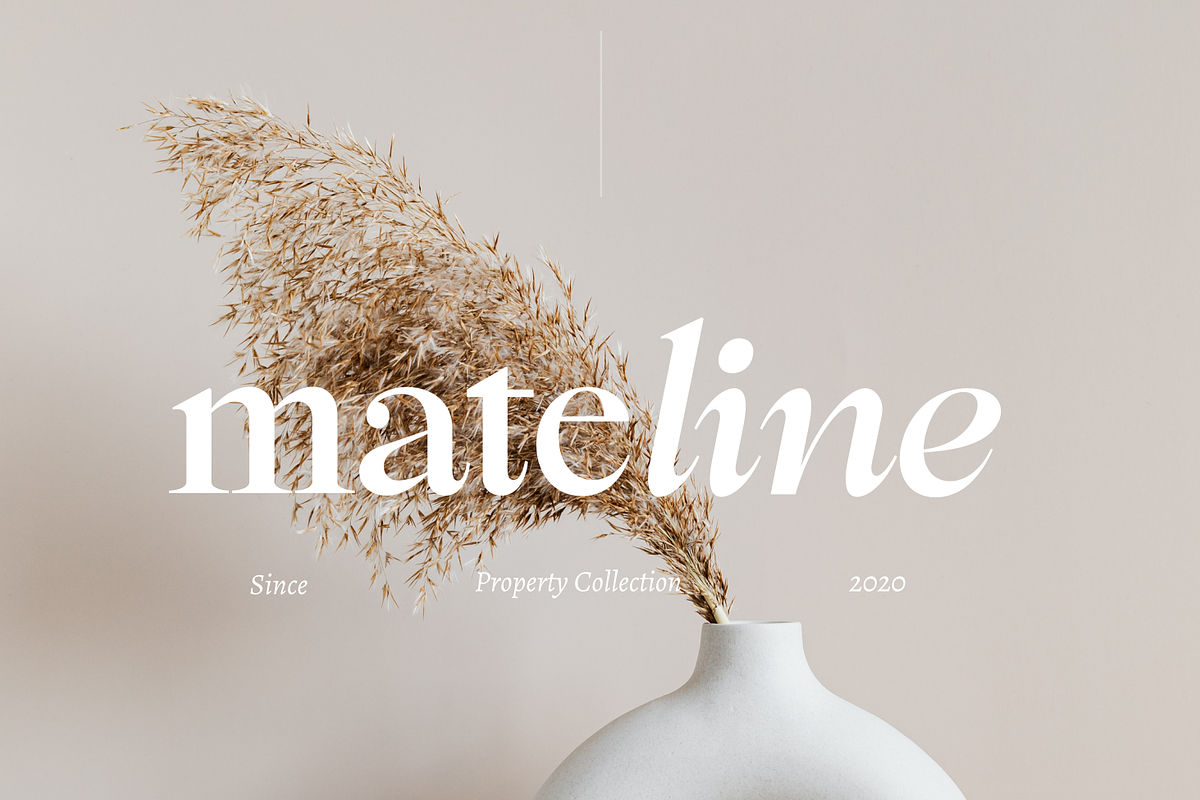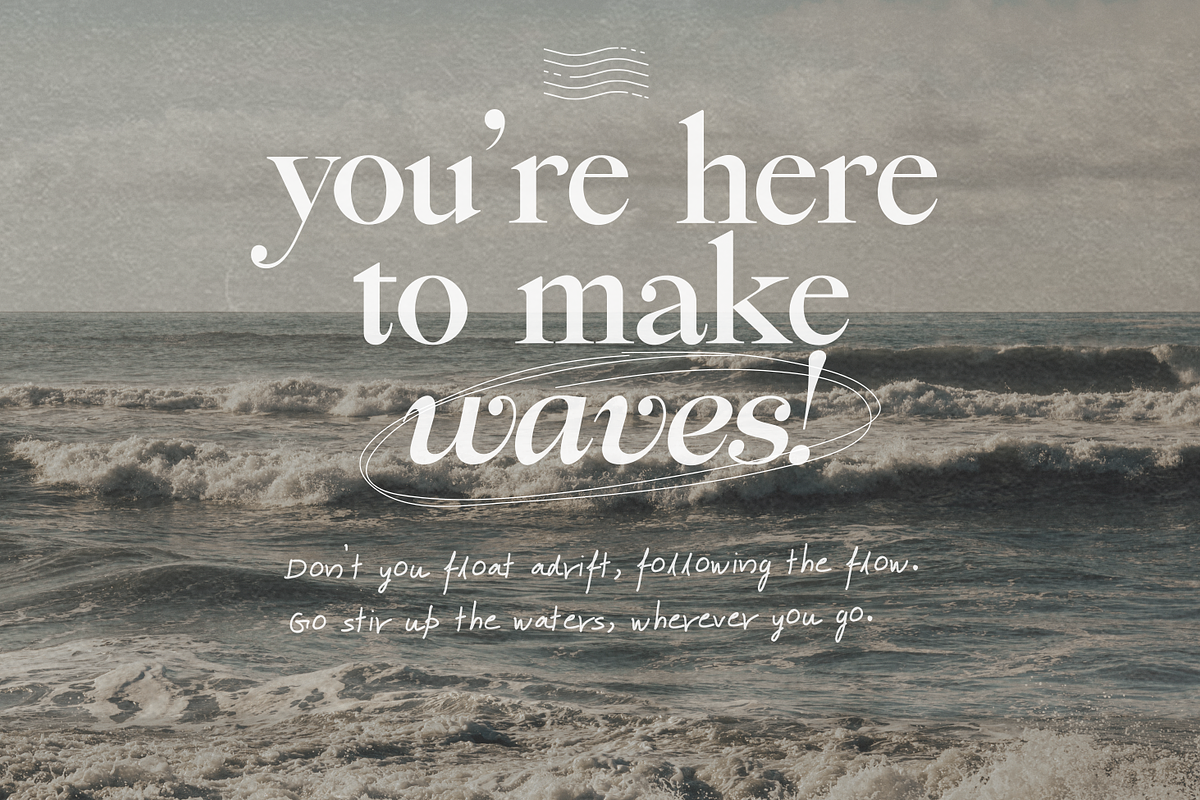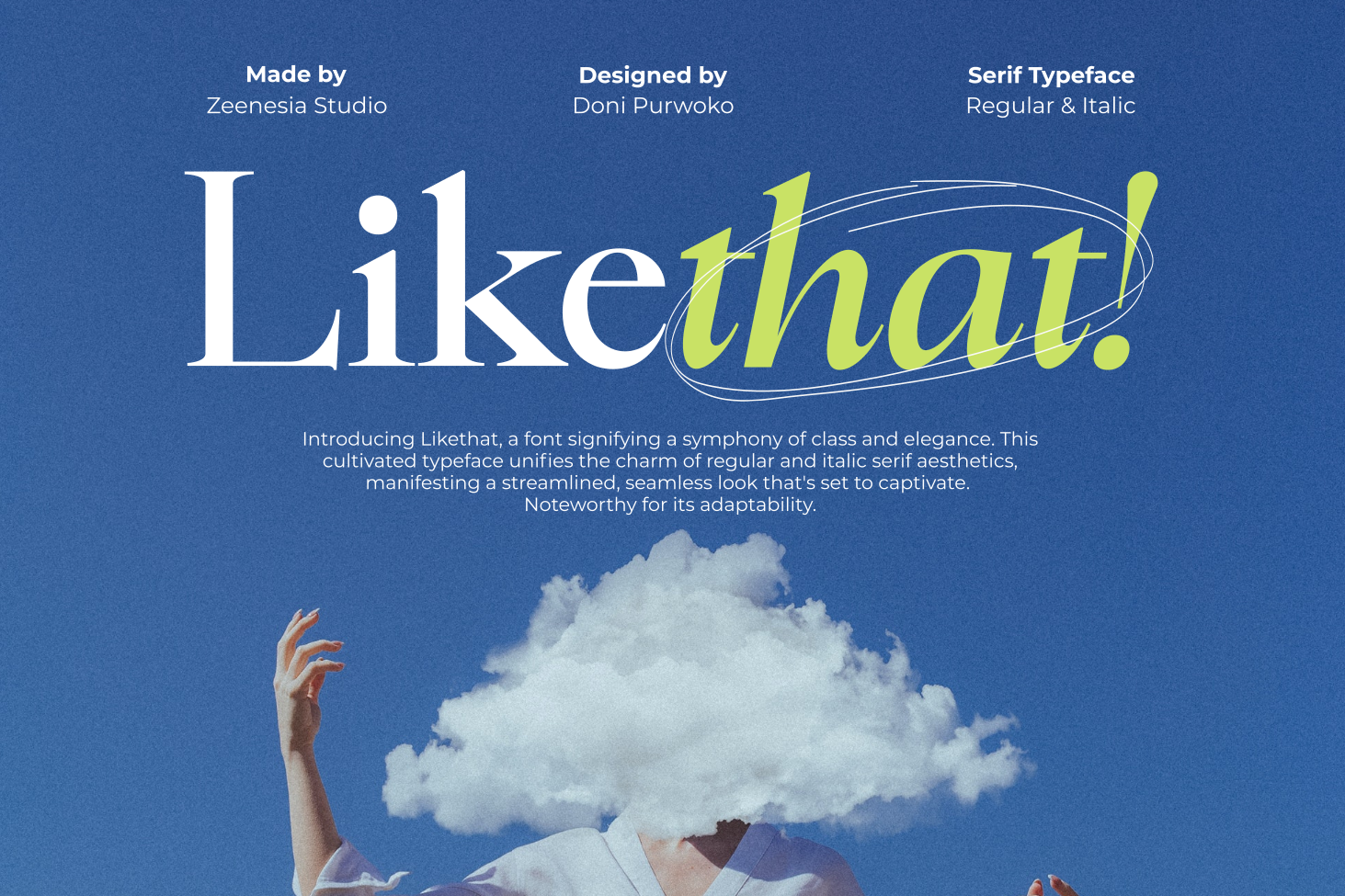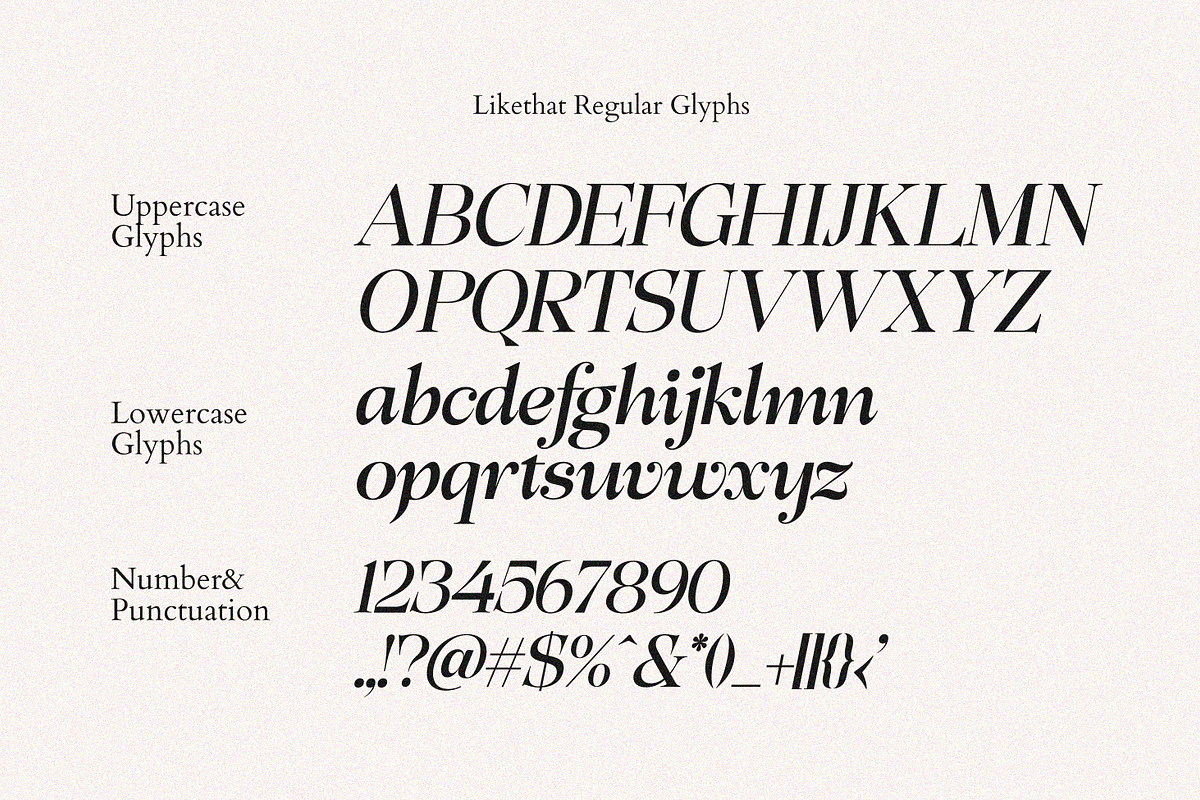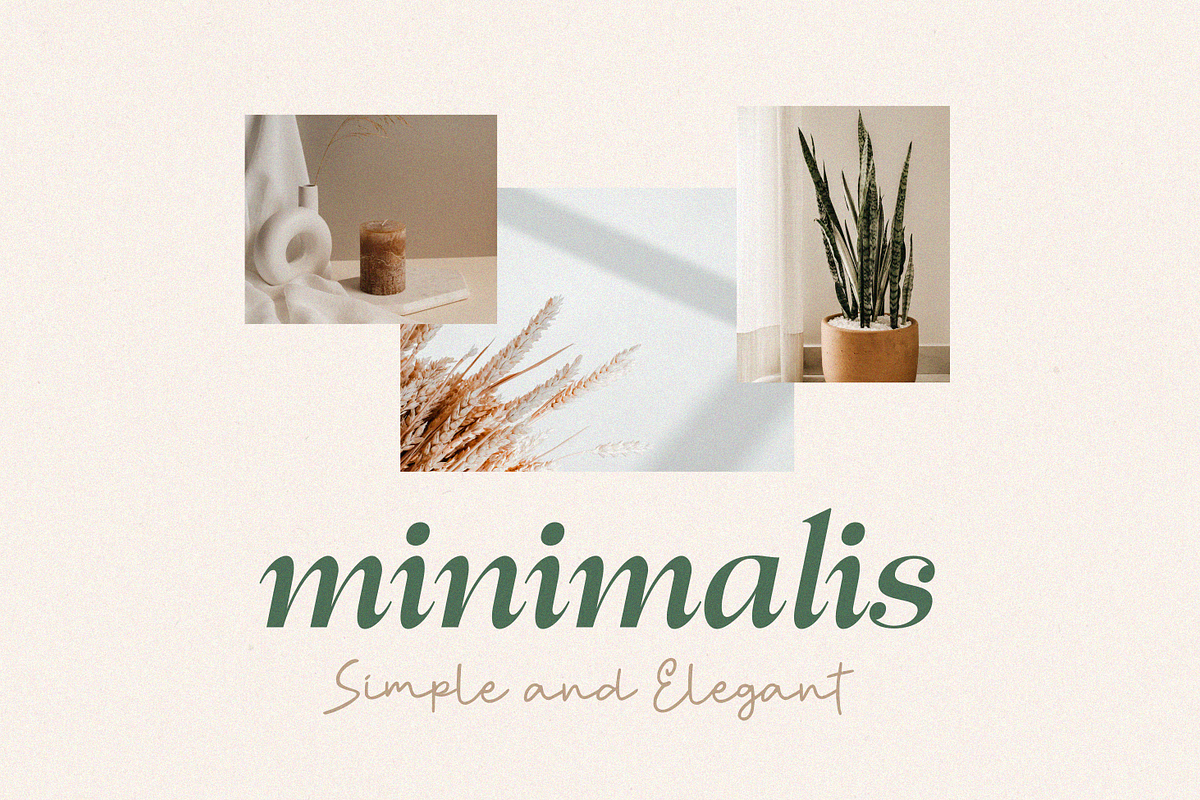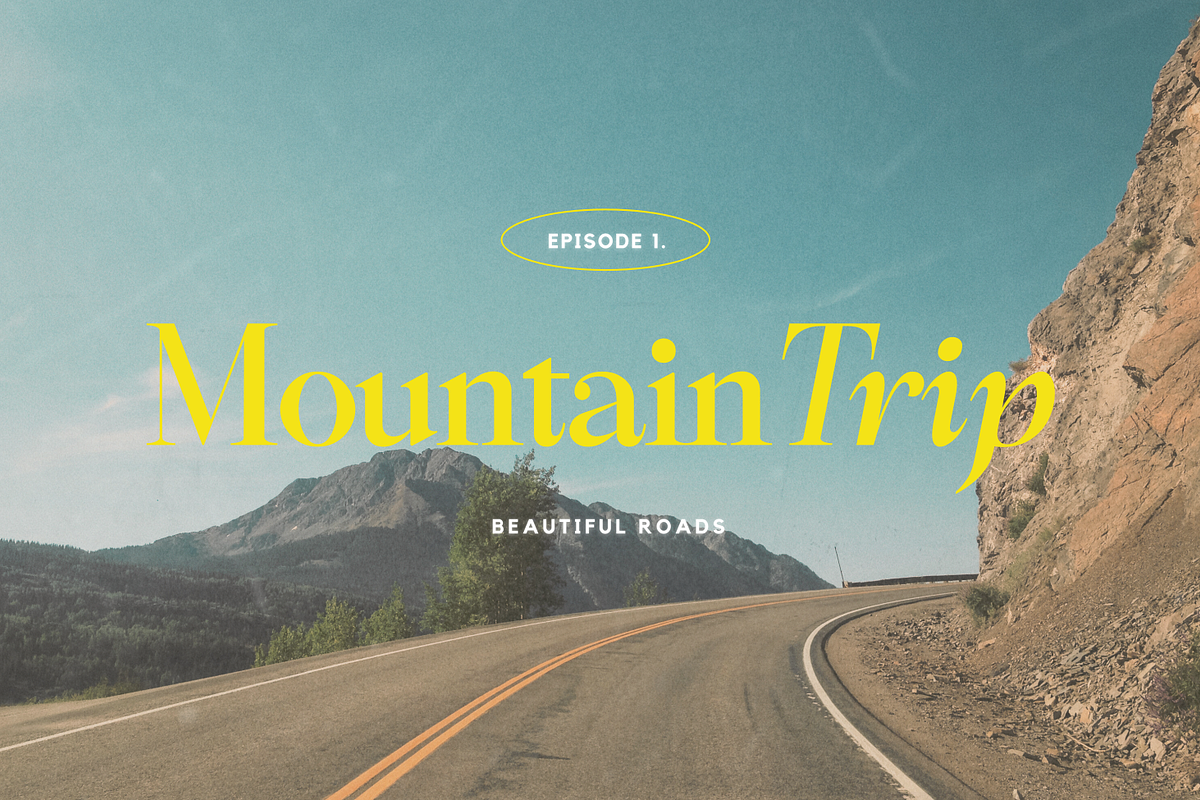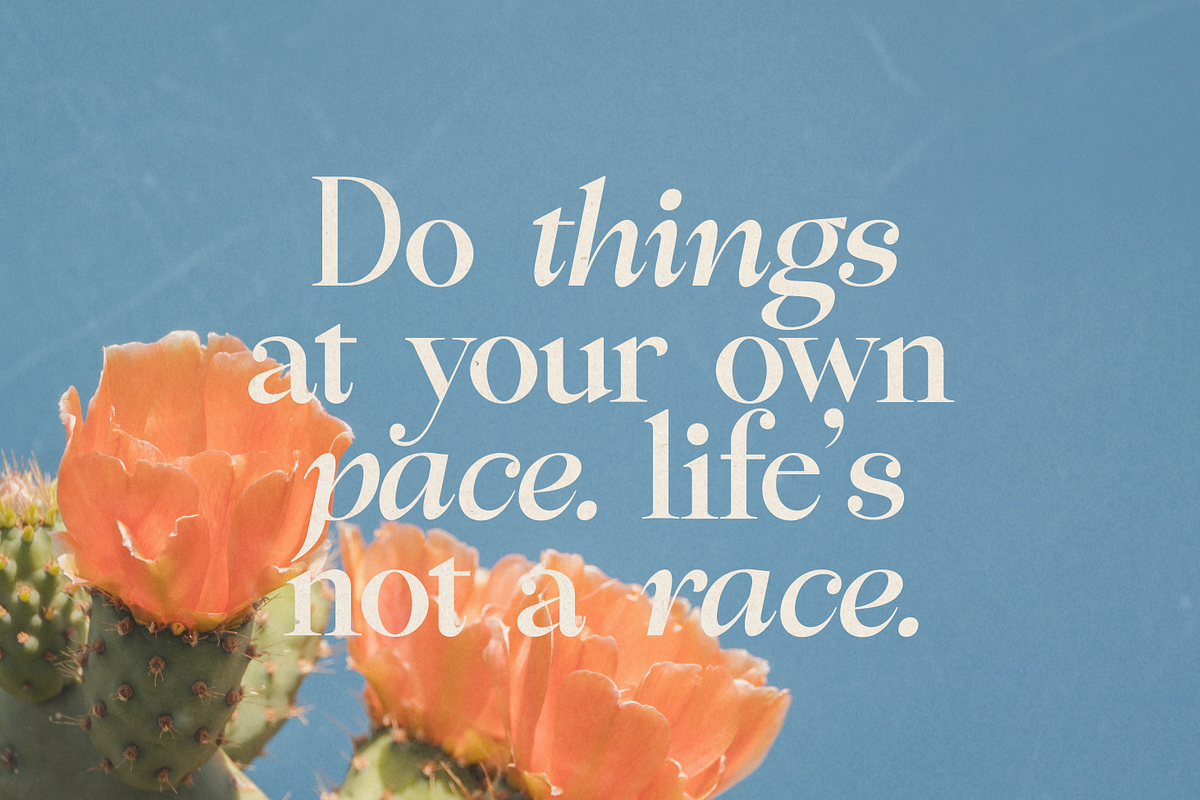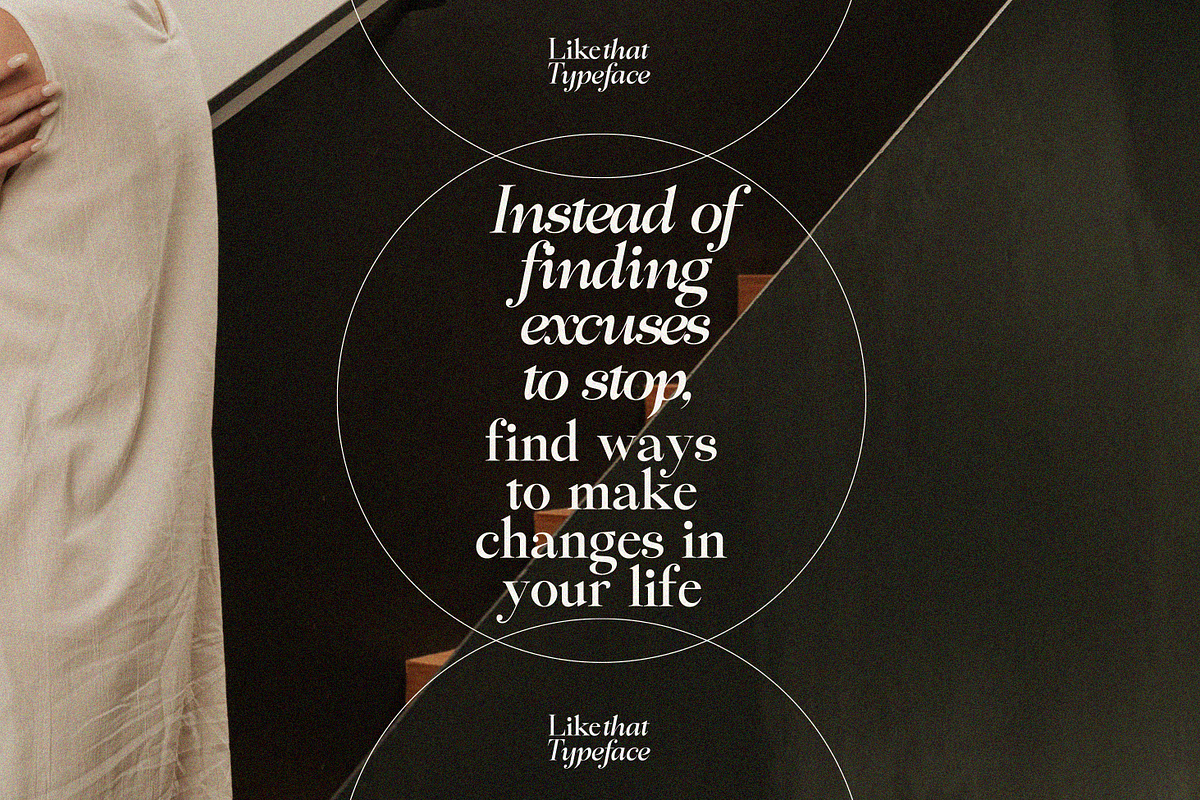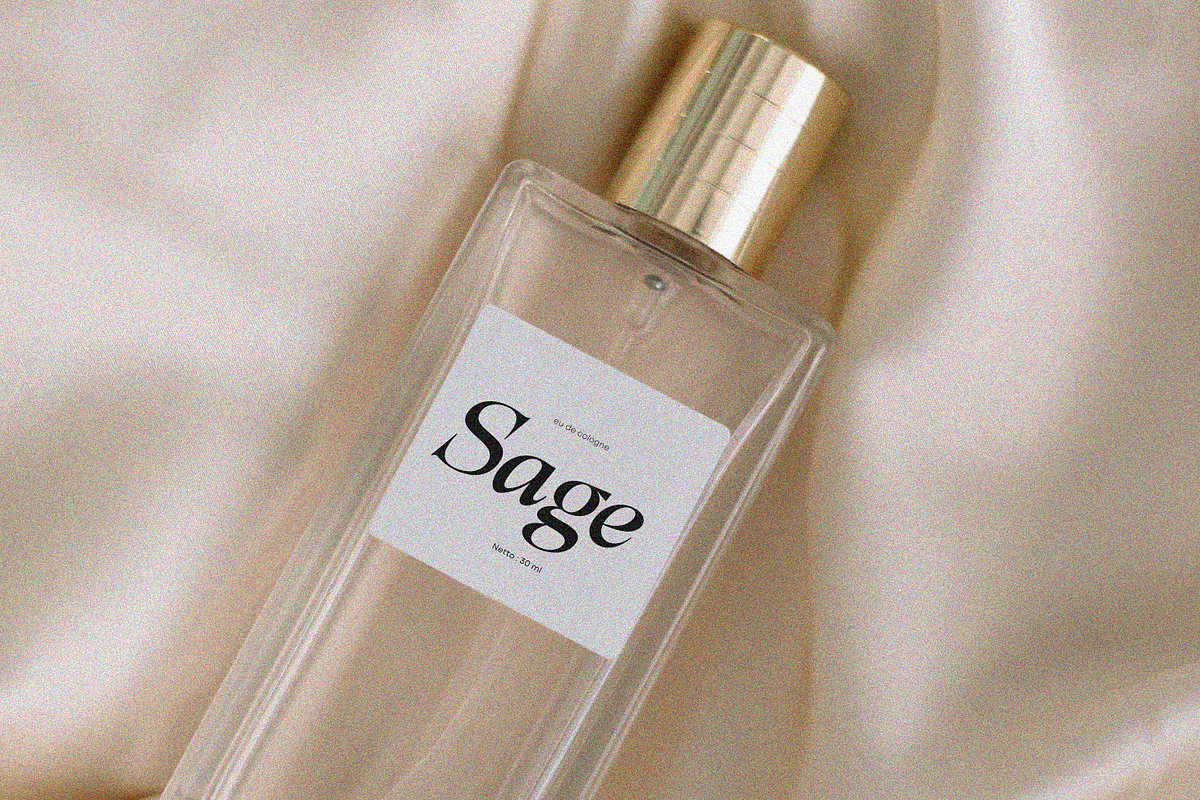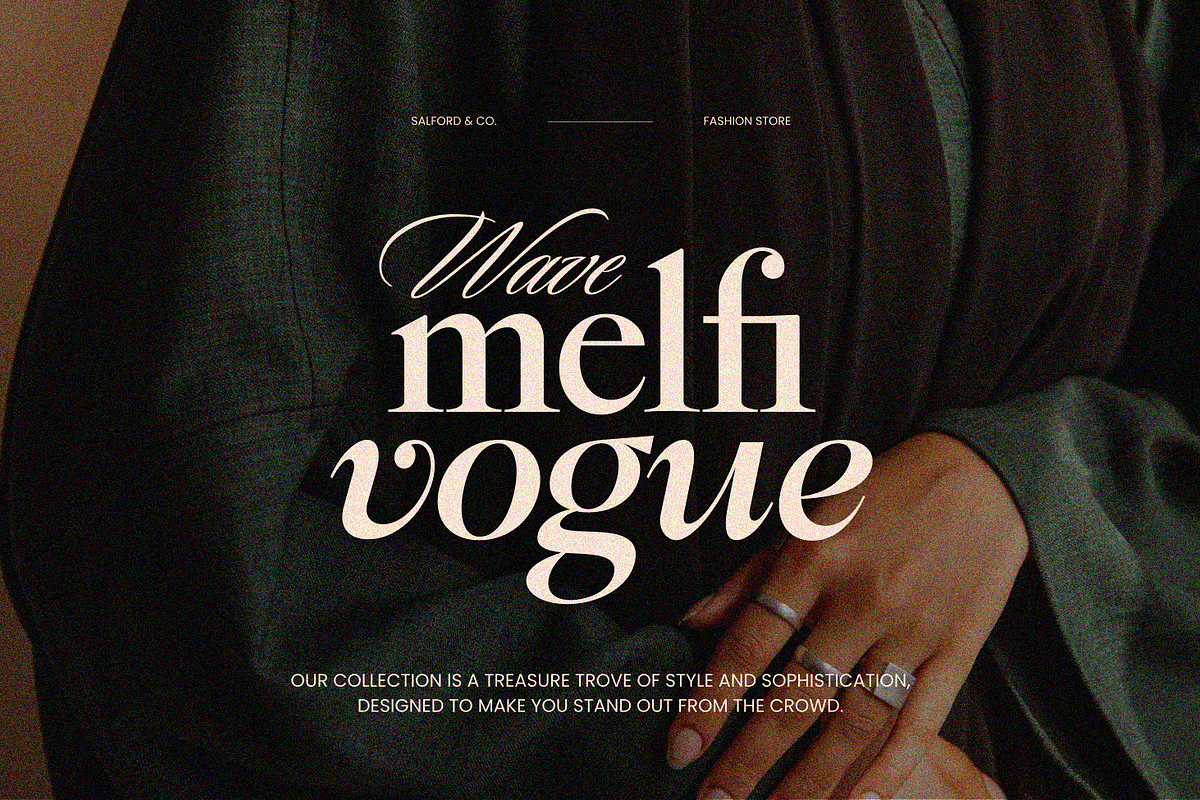
Likethat Font
Discover Likethat - an elegantly designed typeface exuding sophistication like no other. This fresh blend of regular and italic serif font drapes your texts with an irresistible charm and gives them an impressive visual appeal. Hence, no matter how big or small your canvas, Likethat seamlessly blends in, adding a touch of refinement to your masterpiece, this font ensures your project strikes the perfect chord of chic and modernity. Whether it's editorial projects, logo design, web font usage, branding, product packaging or magazine fonts, Likethat elevates your text overlays to a visually astounding canvas. Plus, the font is PUA encoded which means it's a breeze to access all of its glyphs and swashes. Captivate your audience with Likethat - where every letter spells elegance.